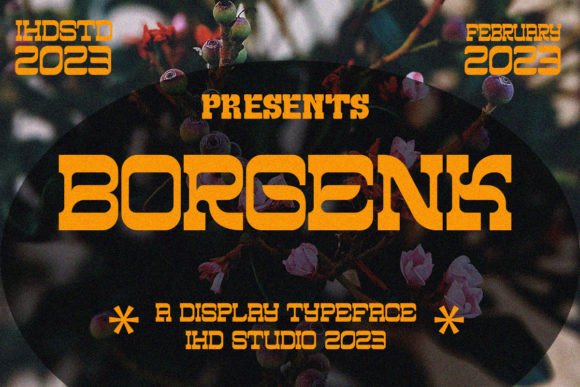
Borgenk Font: The Ultimate Display Font for Making a Statement
In the world of typography, fonts play a crucial role in conveying the tone and personality of a design project. With the vast array of fonts available, it can be challenging to find one that truly stands out from the crowd. However, if you’re looking for a font that makes a statement, look no further than Borgenk Font. This exclusive display font is designed to turn heads, with its bold and eye-catching characters that are sure to leave a lasting impression.
What Sets Borgenk Font Apart
Borgenk Font is not your average font. Its unique style is characterized by bold and chunky characters that exude confidence and sophistication. The font’s decorative elements add a touch of flair, making it perfect for designers who want to add a bit of personality to their work. Whether you’re working on a branding project, a poster, or a website, Borgenk Font is sure to make your design stand out.
Key Features of Borgenk Font
- Unique Style: Borgenk Font boasts a one-of-a-kind style that’s sure to grab attention.
- Bold and Eye-Catching Characters: The font’s bold characters are designed to make a statement, making it perfect for headlines and titles.
- Decorative Elements: The font’s decorative elements add a touch of elegance and sophistication, making it ideal for high-end designs.
- Versatility: Borgenk Font can be used for a wide range of design projects, from branding and advertising to packaging and web design.
Why Choose Borgenk Font?
So, why should you choose Borgenk Font for your next design project? Here are just a few reasons:
- Makes a Statement: Borgenk Font is designed to make a statement, ensuring your design stands out from the crowd.
- Easy to Read: Despite its bold style, Borgenk Font is surprisingly easy to read, making it perfect for headlines and titles.
- Highly Versatile: The font can be used for a wide range of design projects, from print to digital.
- Exclusive: Borgenk Font is an exclusive display font, ensuring that your design will stand out from the crowd.
How to Use Borgenk Font
Using Borgenk Font is easy. Here are a few tips to get you started:
- Pair with a Simple Font: Pair Borgenk Font with a simple font for body text to create a striking contrast.
- Use for Headlines: Use Borgenk Font for headlines and titles to make a statement.
| Font Name | Borgenk Font |
| Author | IHD.STD |
In conclusion, Borgenk Font is an exclusive display font that’s perfect for making a statement. Its unique style, bold and eye-catching characters, and decorative elements make it an ideal choice for any design project. Whether you’re a designer or a crafter, Borgenk Font is sure to take your work to the next level. So why settle for a ordinary font when you can make a statement with Borgenk Font?